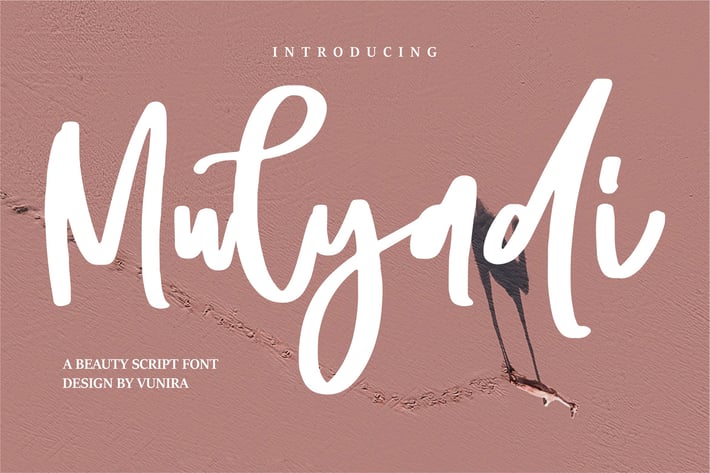
Mulyadi | A Beauty Script Font
Mulyadi | A Beauty Script Font with a calligraphy style, So beautiful on invitation like greeting cards, branding materials, business cards, quotes, posters, and more!